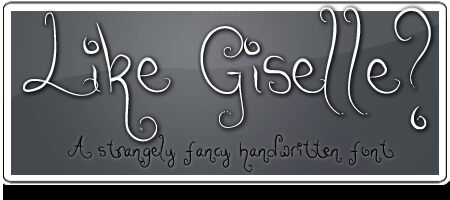
Like Giselle? is a free calligraphic display font drawn with hairline-thin strokes, tall looping forms, and extravagant curls. Its uneven handwritten construction feels airy and whimsical, with letters that dip and rise far beyond the main writing line.
A boutique perfume or confectionery brand could use it to suggest delicacy and slightly eccentric elegance. It also fits fashion invitations and theatrical posters, especially when the lettering can mingle with ornamental illustration. The sweeping curls can become part of a border or decorative emblem.